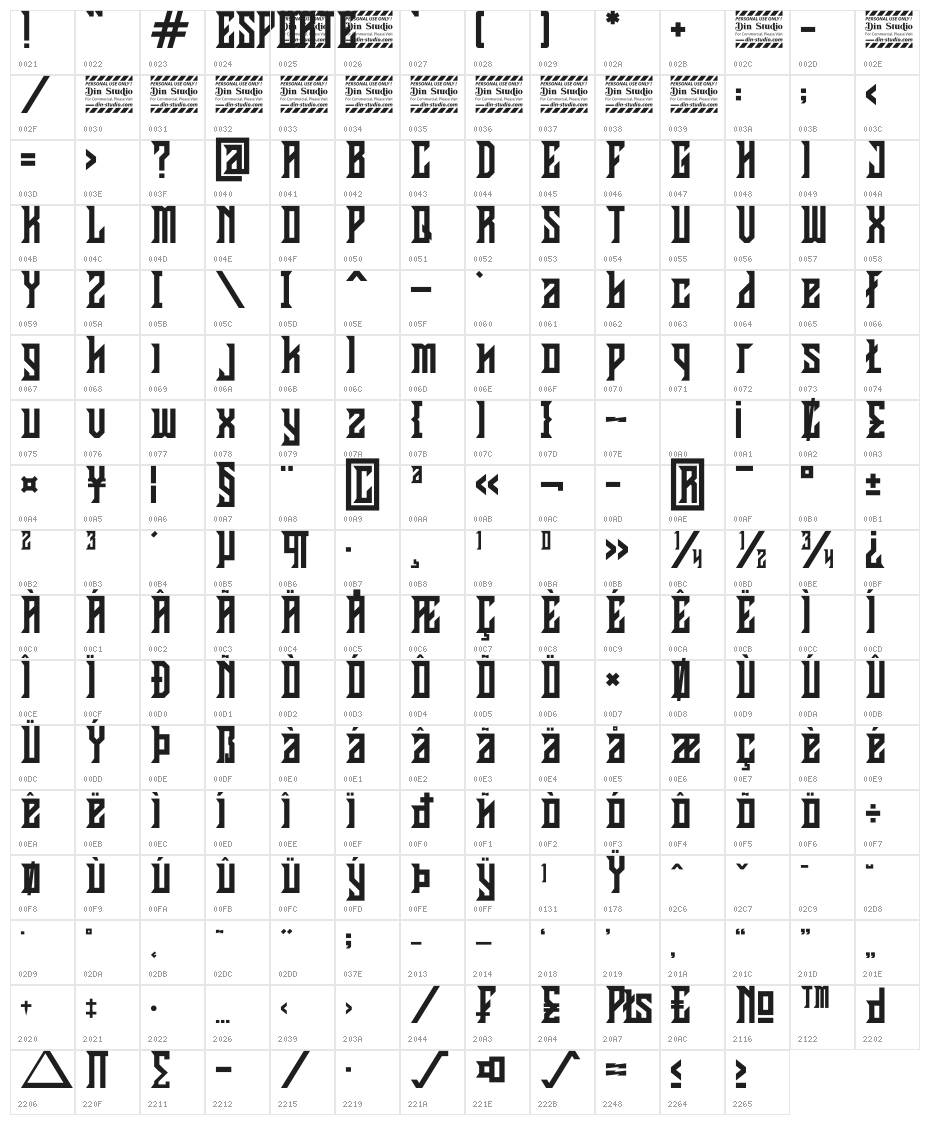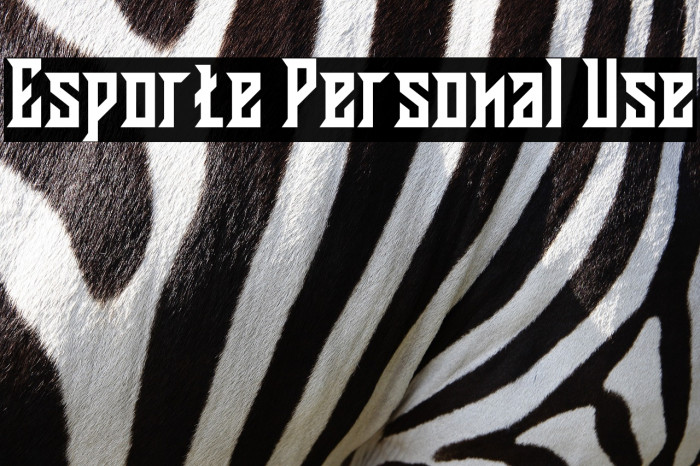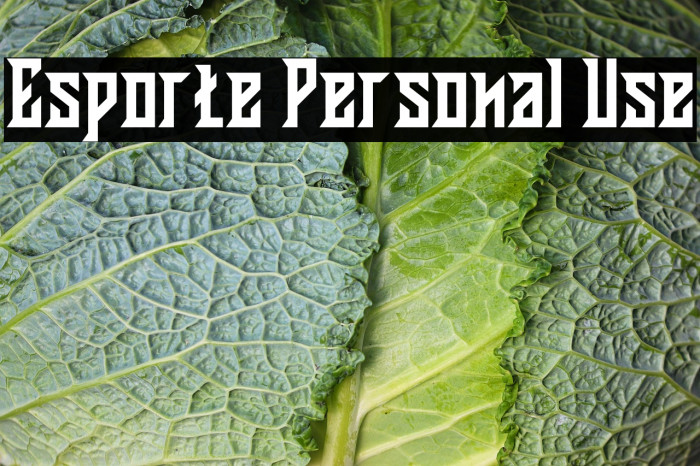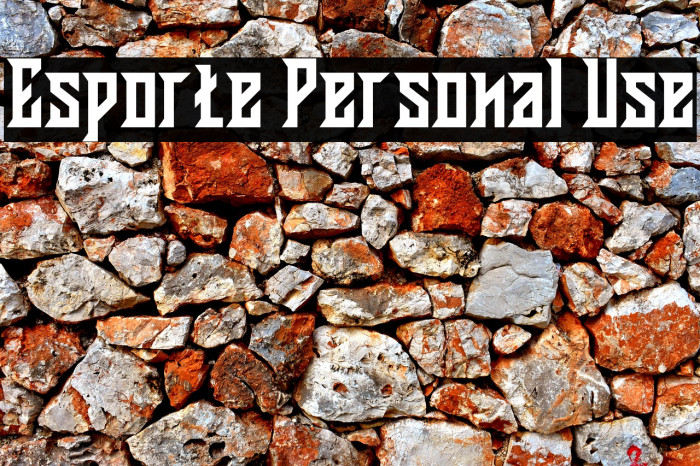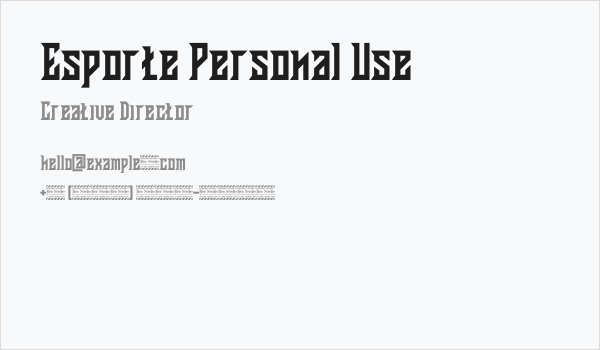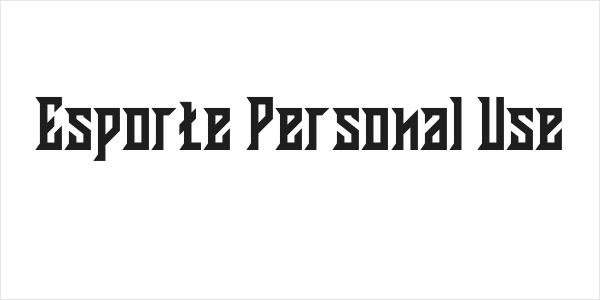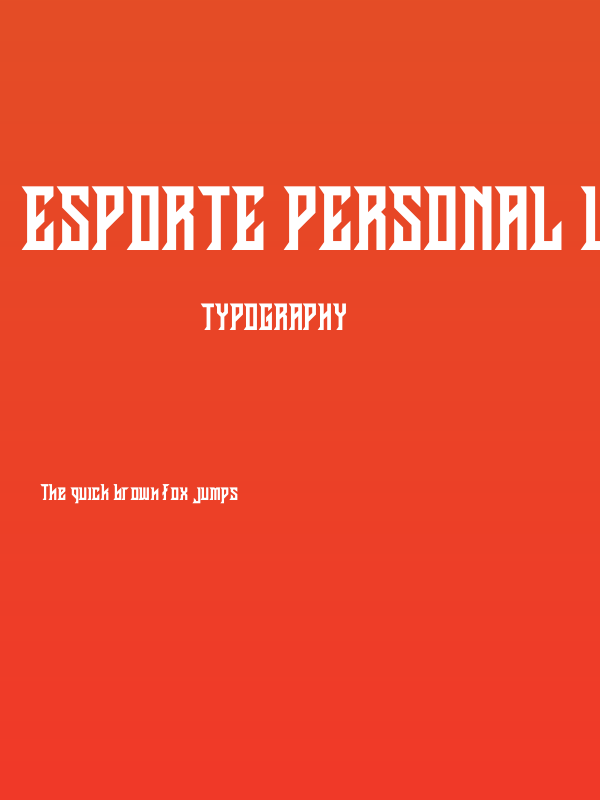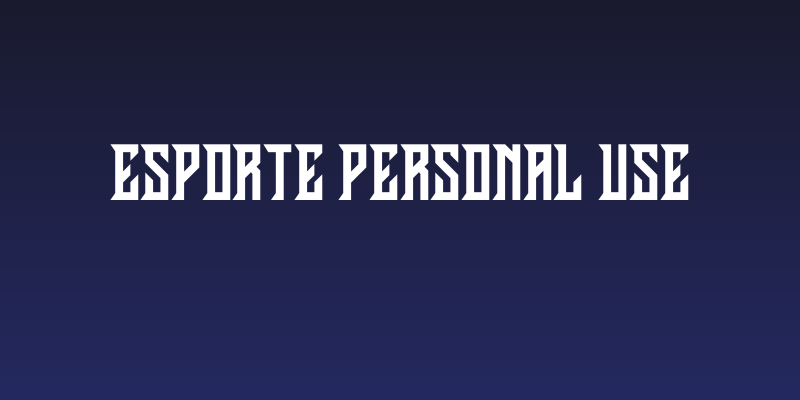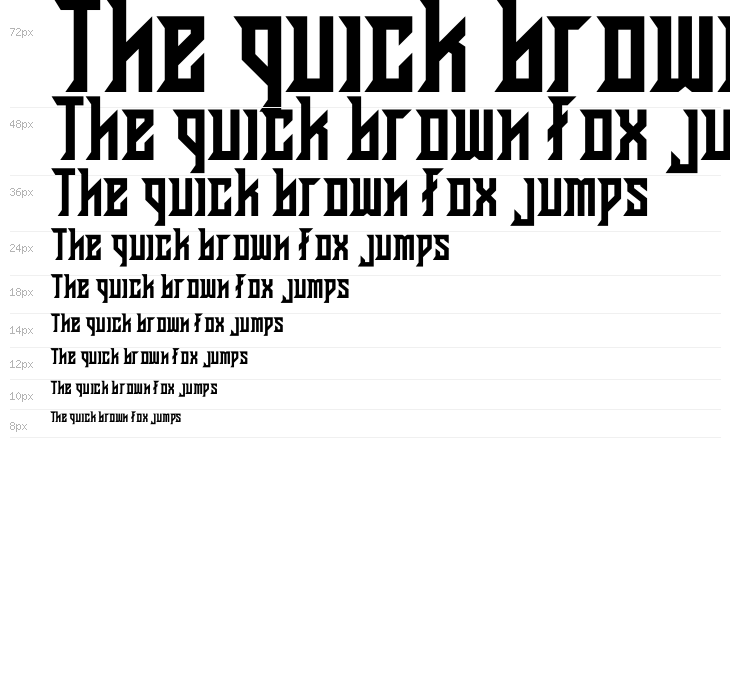
Esporte Personal Use Font
Esporte Personal Use Description
This font features a bold and dynamic design, characterized by sharp, angular lines and a strong geometric structure. The uppercase and lowercase letters maintain a consistent style, with a distinct emphasis on vertical and diagonal strokes. The font exudes a sense of energy and movement, making it ideal for projects that require a modern and edgy aesthetic. The numerals and special characters are crafted with the same attention to detail, ensuring a cohesive look across all text elements. Its unique style is perfect for creating eye-catching headlines and logos.
| Proposed Projects | Ideal for sports branding, dynamic posters, and modern logos. |